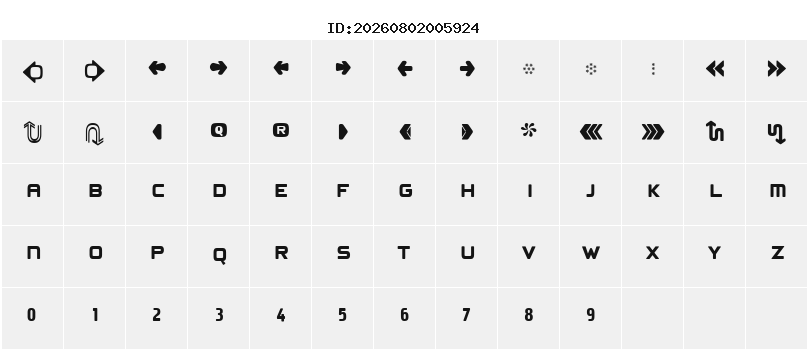
• Font Name: Mayo
• Full Font Name: Mayo-DingbatsOne
• PostScript Name: Mayo-DingbatsOne
• Character Count: 134
About Mayo.ttf
Mayo.ttf is a modern, elegant sans-serif font designed for ultimate readability and visual harmony. Perfect for branding, headlines, web design, and print materials.